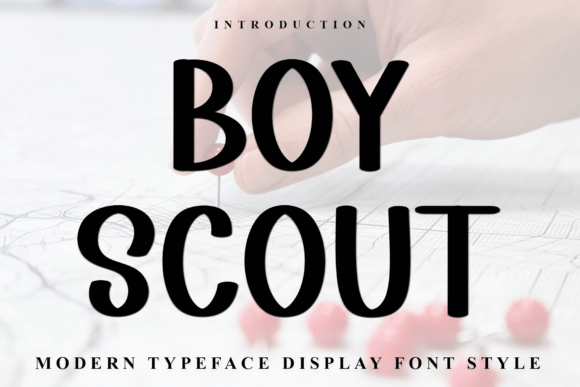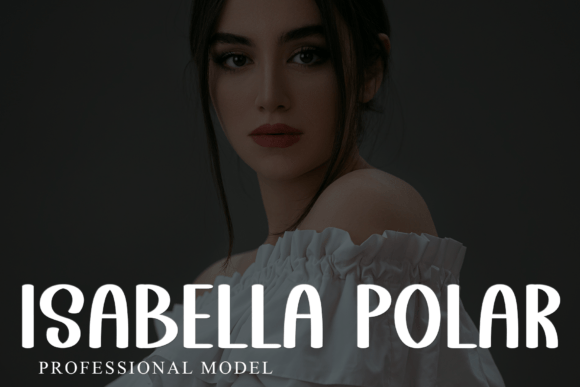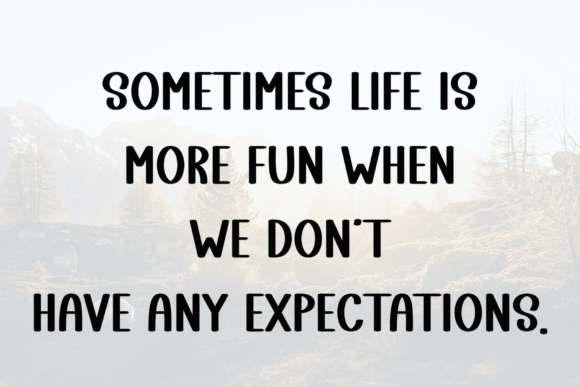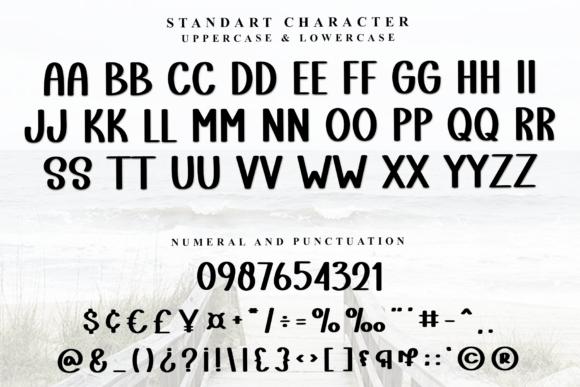
Boy Scout Font: A Bold Display Font for Headlines & Posters
About the Boy Scout Font
Meet Boy Scout Font, a stunning font that brings a touch of elegance and professionalism to any design. Boy Scout is a sweet and friendly handwritten font. Its natural and unique style makes it incredibly fitting to a large pool of designs. The only limit is your imagination!
Boy Scout’s friendly, handwritten style works best for projects needing a touch of warmth and approachability. Ideal applications include logos for children’s products, invitations, short headlines, and social media graphics. It’s less suitable for body text or large blocks of copy due to its less formal, handwritten nature. Avoid using it in user interfaces or situations demanding high readability.
To complement its informal charm, pair Boy Scout with a clean sans-serif like Open Sans for a balanced contrast, or a playful geometric font like Futura for a more modern feel. A classic serif such as Garamond could also provide a sophisticated counterpoint, enhancing the overall design’s visual appeal.
The font projects a personality that is both approachable and slightly whimsical, making it perfect for brands targeting a young or family-oriented audience. Its informal charm lends itself well to handmade or artisan-style products.
Boy Scout Font Usage Examples
Boy Scout Font Example